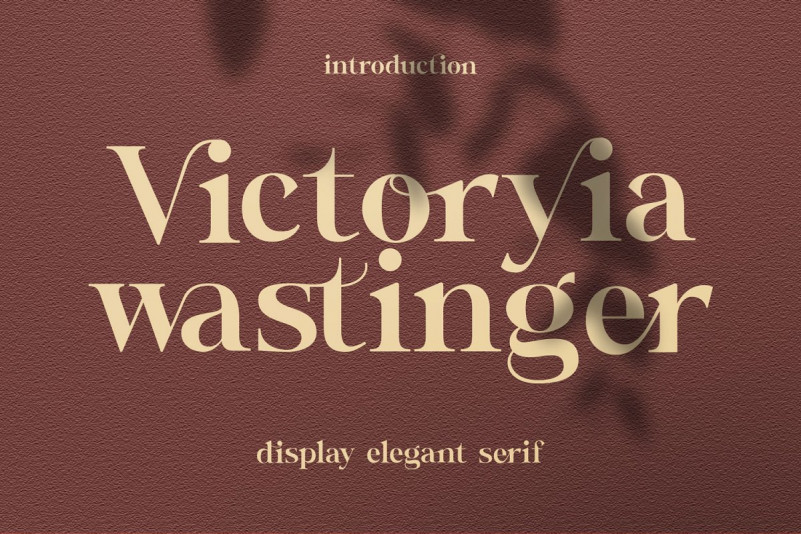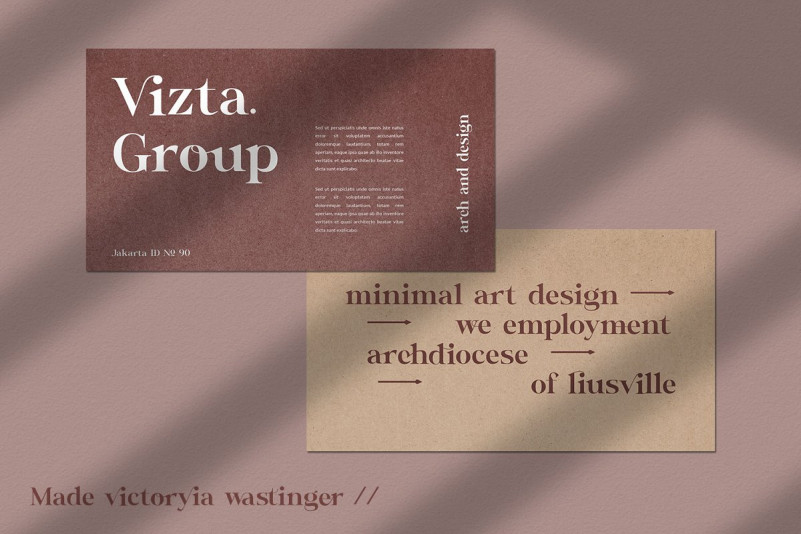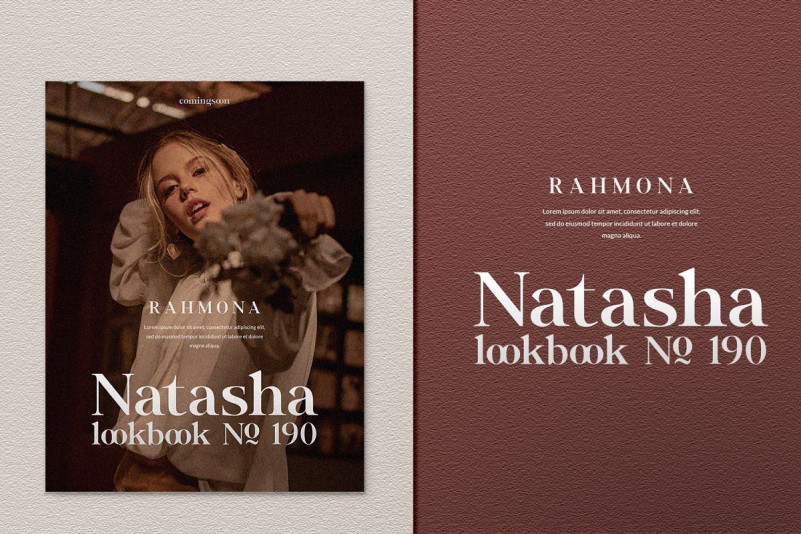
Victoryia Wastinger Font
Victoryia Wastinger is a unique elegant font that uses unique ligature to display the brand, product, logo and quotation marks of words.